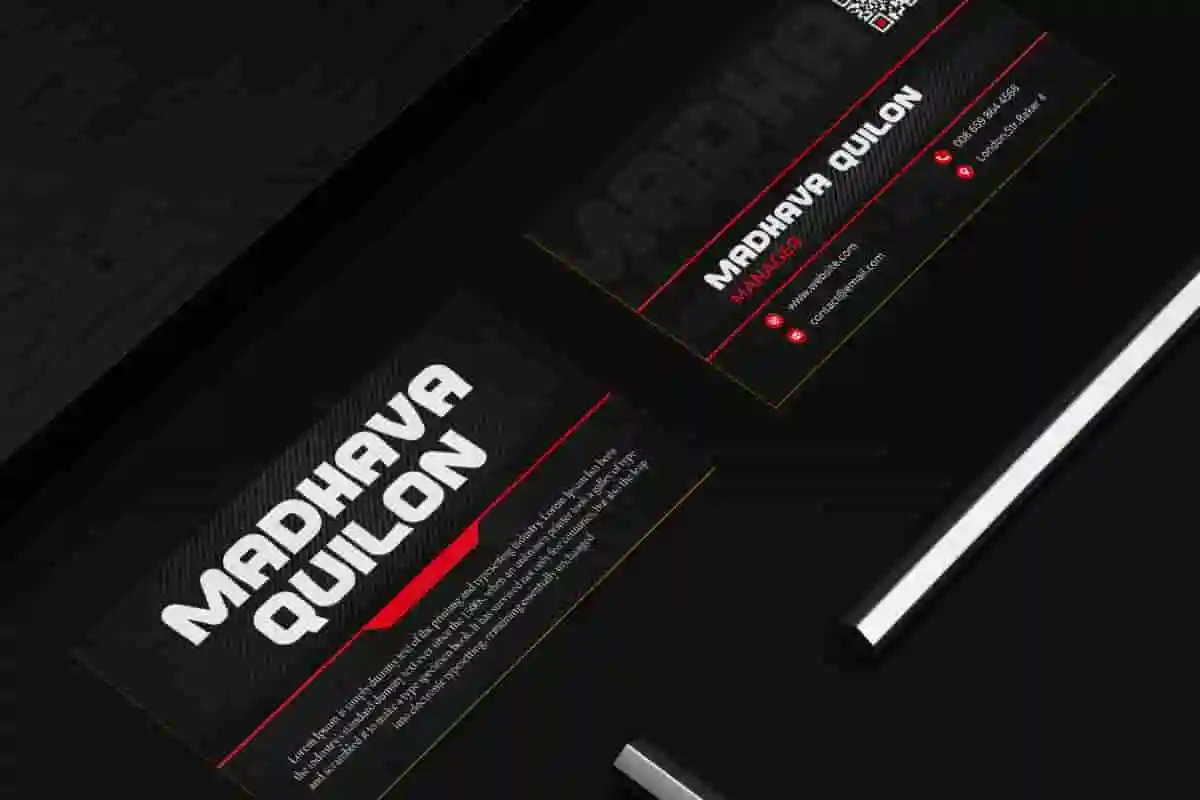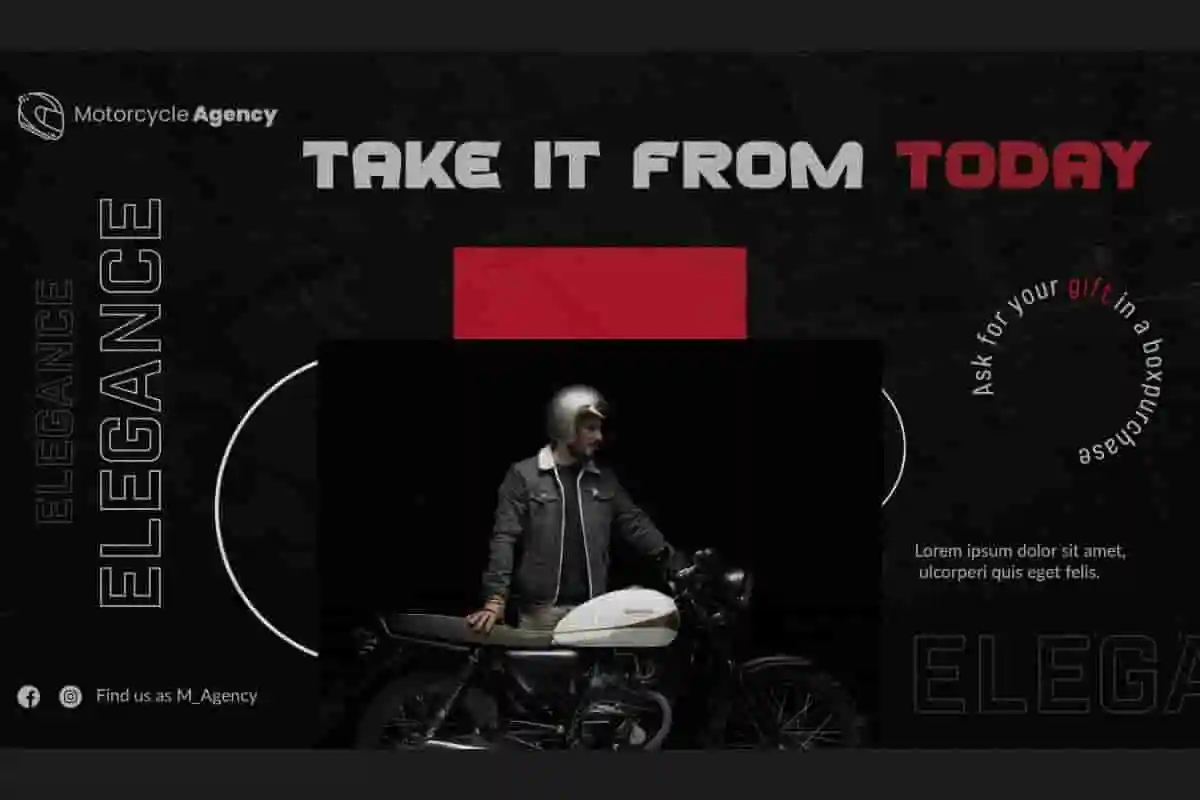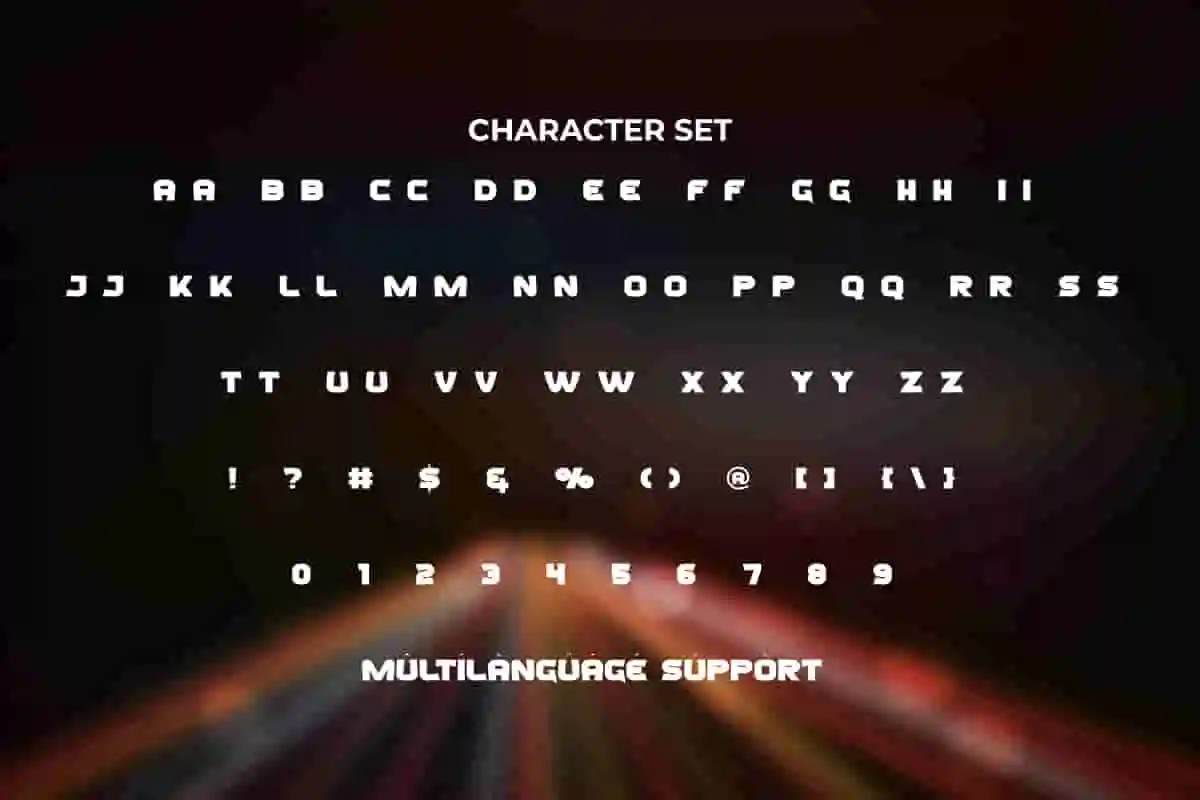
Second Minute Font is a unique modern display racing font, created by NoahType. This font has a cool style with a unique shape that makes it different from the others. It will be good for any designs, such as brand image, custom design, invitation, label, marketing material, menu, poster, product packaging, quotes, signage, stationery, web, and many more!
Second Minute Font includes a complete set of ALL CAPS for Uppercase and Lowercase Basic Characters, Numerals, Punctuation, and Symbol. This stylish racing font will be a perfect choice for many industries, such as accessories, advertising, automotive, event or festival, fashion, game, printing, publishing, sports, travel, etc.